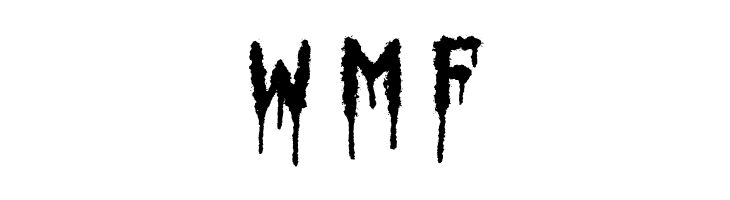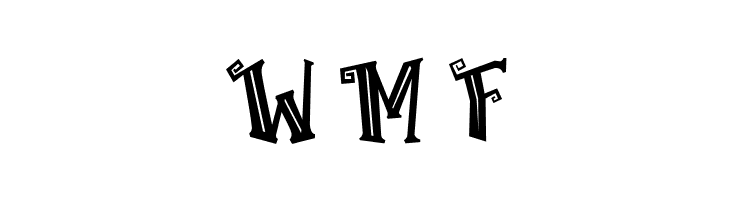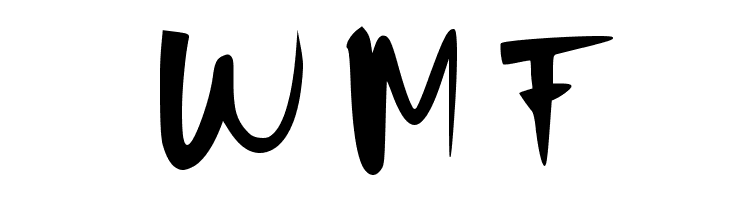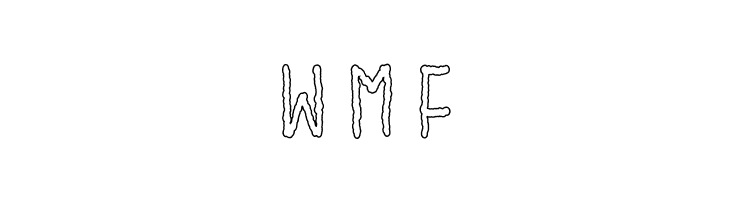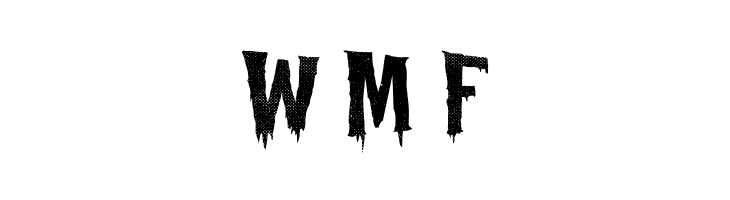
A spooky, jagged font ideal for horror themes.
A dripping, eerie font perfect for horror themes.
A bold, hand-drawn font with a playful, spooky aesthetic.
A playful, spooky handwritten font with bold, rounded strokes.
A dripping, horror-themed font with a bold, eerie style.
A bold, playful font with a spooky, Halloween-inspired design.
A bold, brush-style font with a playful, spooky vibe.
A spooky, hand-drawn font with irregular, twisted lines.
A bold, dripping font with a horror-themed, decorative style.
A spooky, dripping font perfect for Halloween themes.